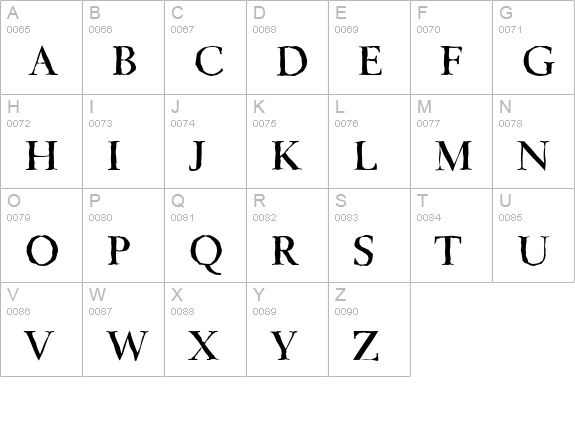
BelfastAntique-Medium-Regular is a balanced, medium-weight variant in the BelfastAntique typeface family \xE2\x80\x94 well suited to sub-headlines, navigation, and balanced editorial work.
BelfastAntique-Medium-Regular is a timeless and elegant font that seamlessly combines classic and modern design elements. Its intricate details and vintage charm make it the perfect choice for projects that require a touch of sophistication and nostalgia. The font's medium weight strikes a balance between readability and style, making it versatile for a wide range of creative endeavors. Best of all, BelfastAntique-Medium-Regular is available for free download at FontsMarket.com. Now you can effortlessly add a touch of old-world elegance to your designs without breaking the bank. Whether you're working on a branding project, invitations, or any other creative venture, BelfastAntique-Medium-Regular is sure to elevate your work with its unique character and timeless appeal. Download it today and let your creativity shine with this exquisite font.